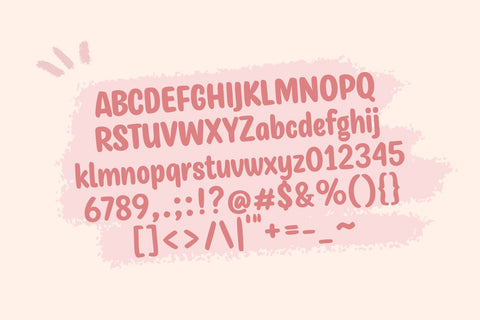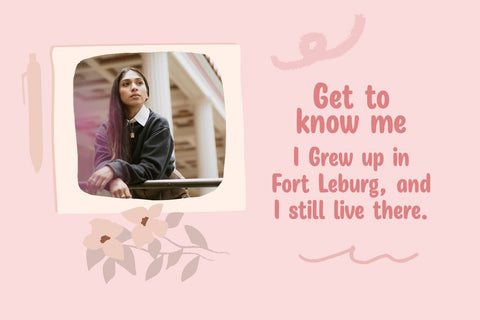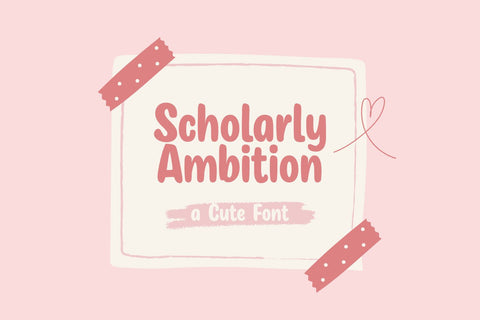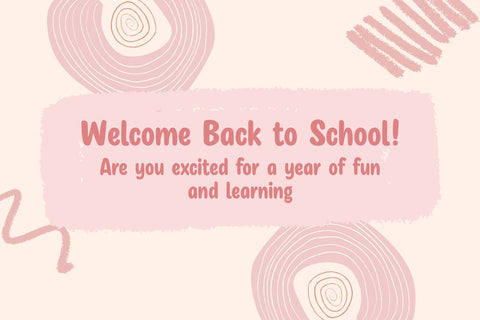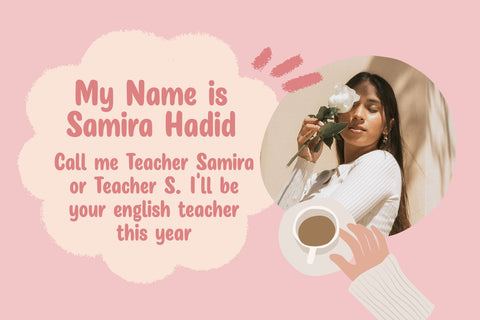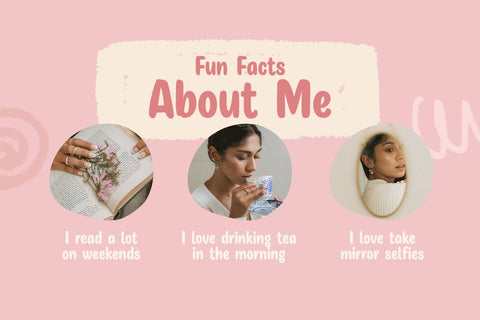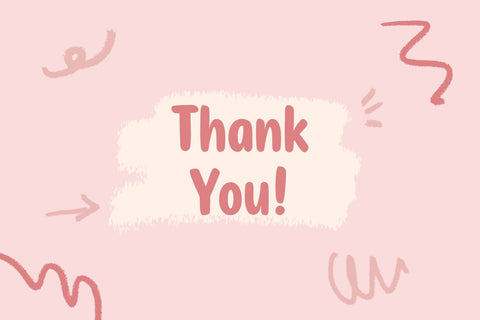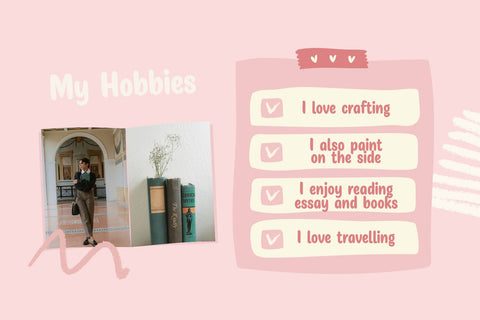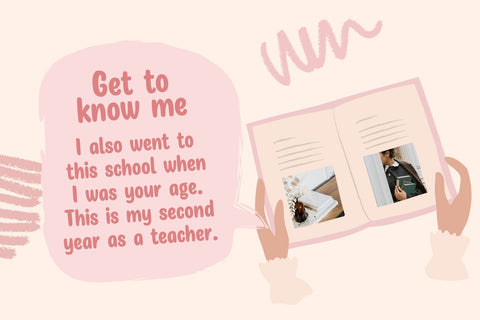
Scholarly Ambition - a Cute Font
Scholarly Ambition is a cute and fun display font perfect for adding a playful element to your next craft or design project. It is compatible with cutting machines such as Cricut and Silhouette.